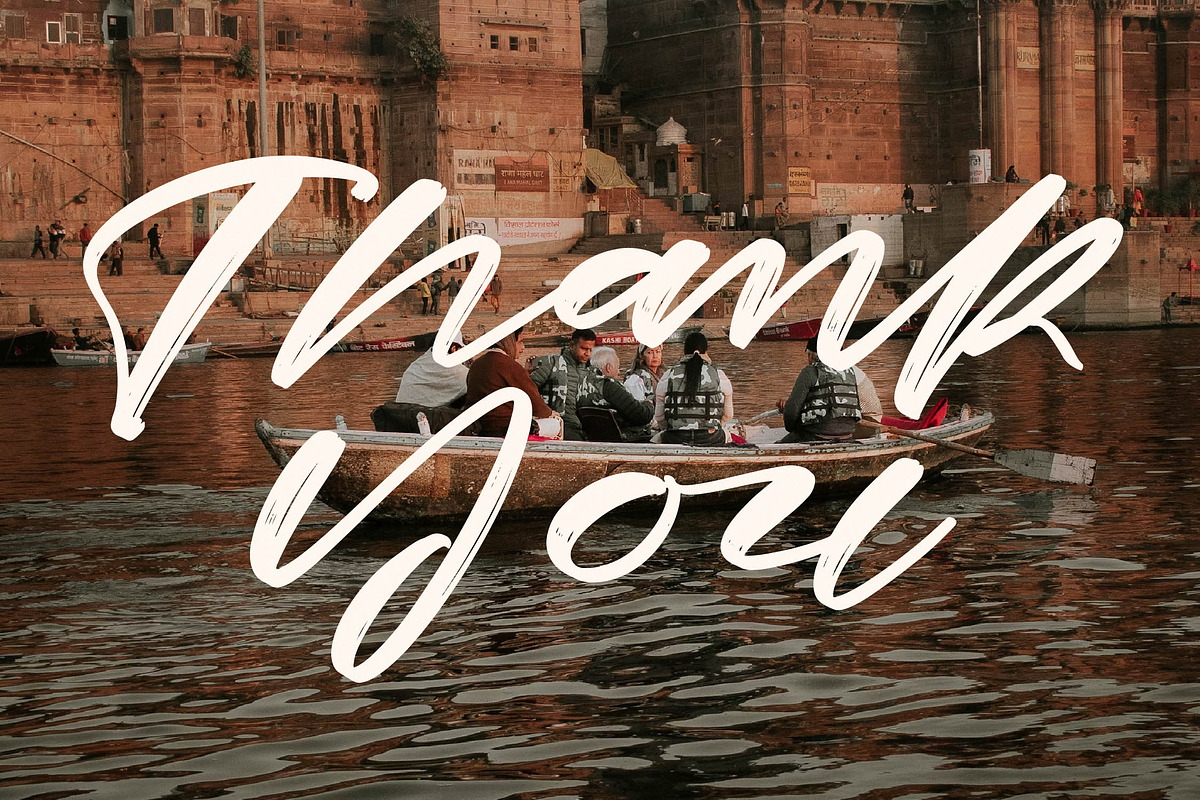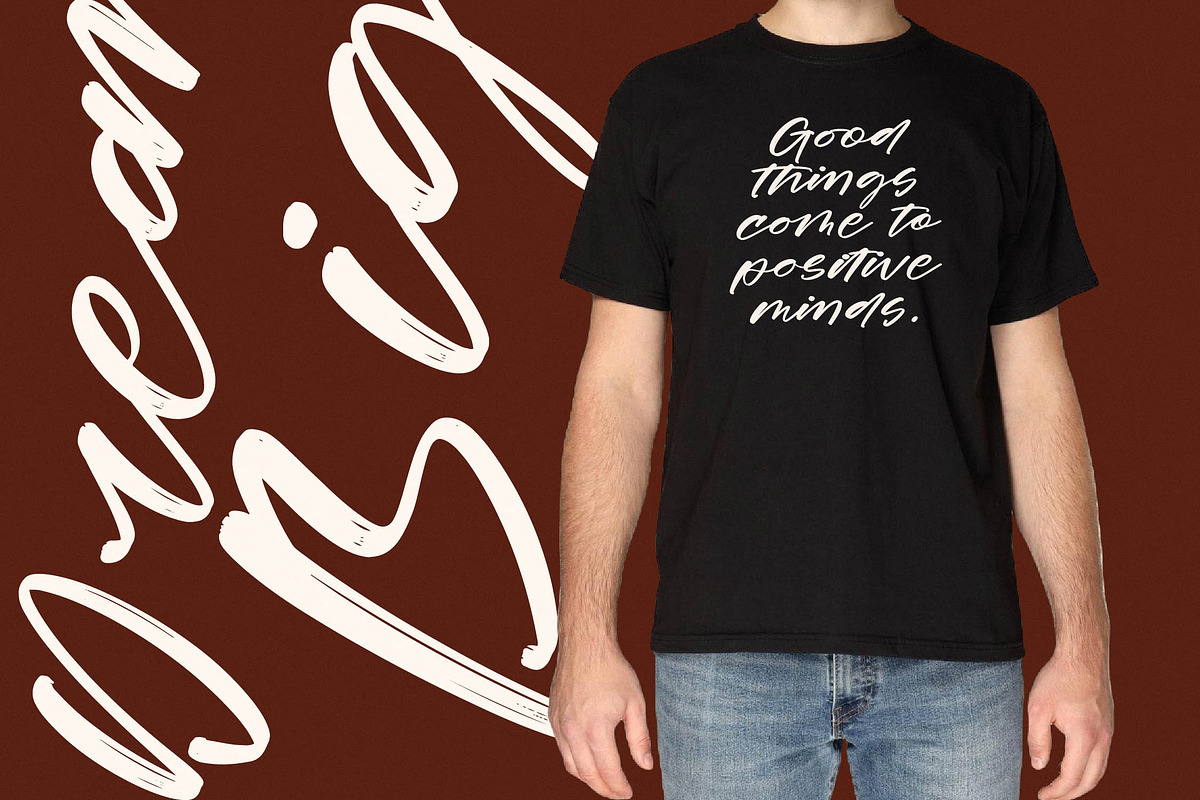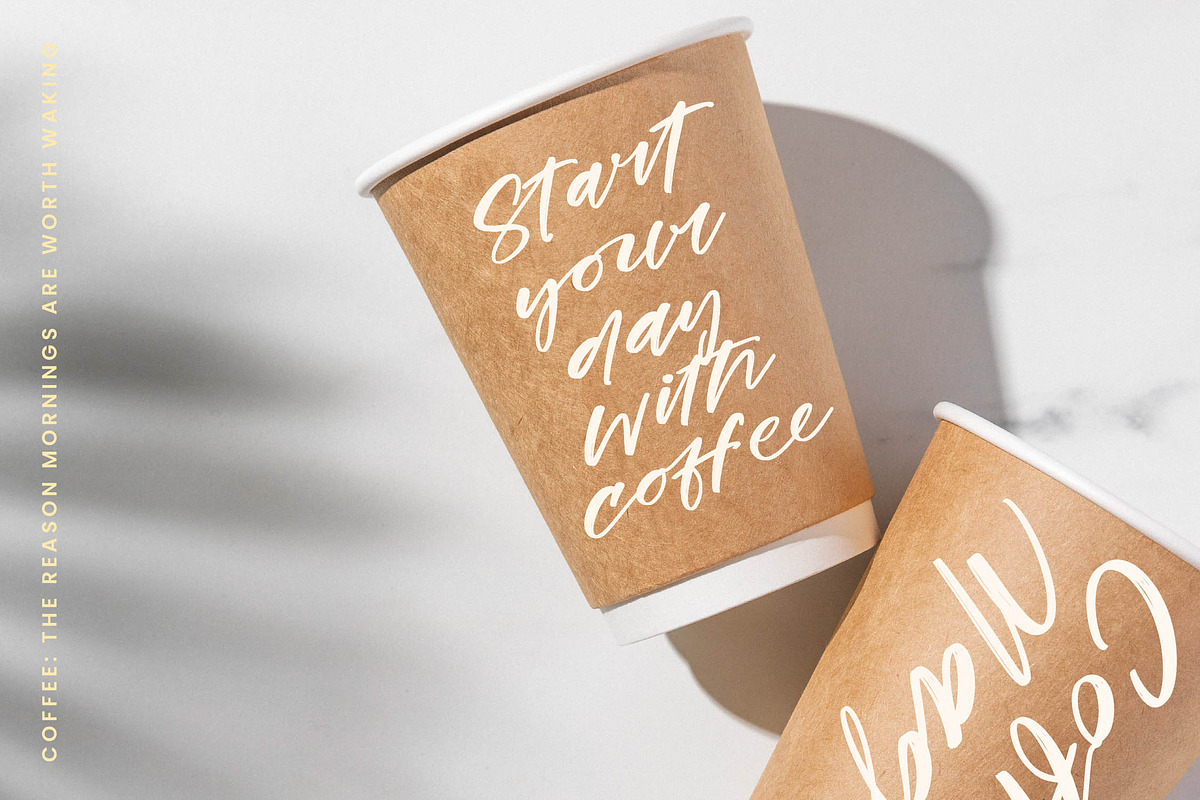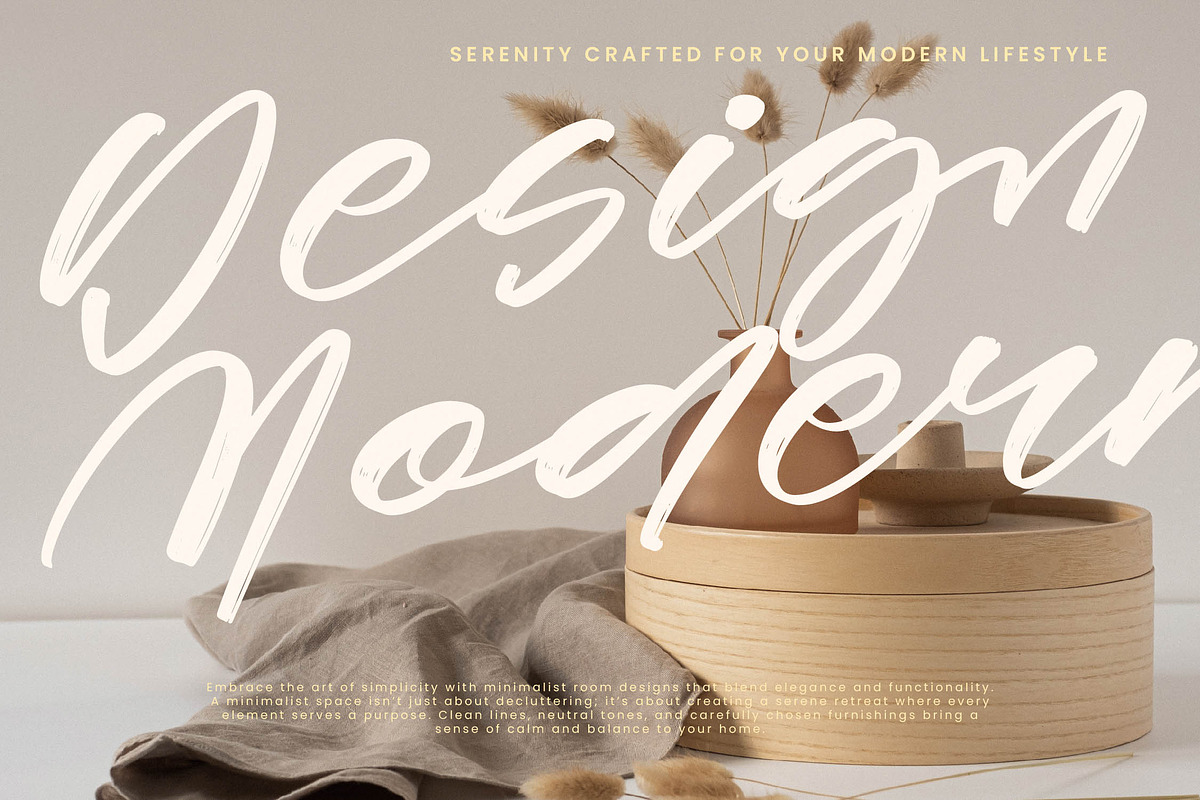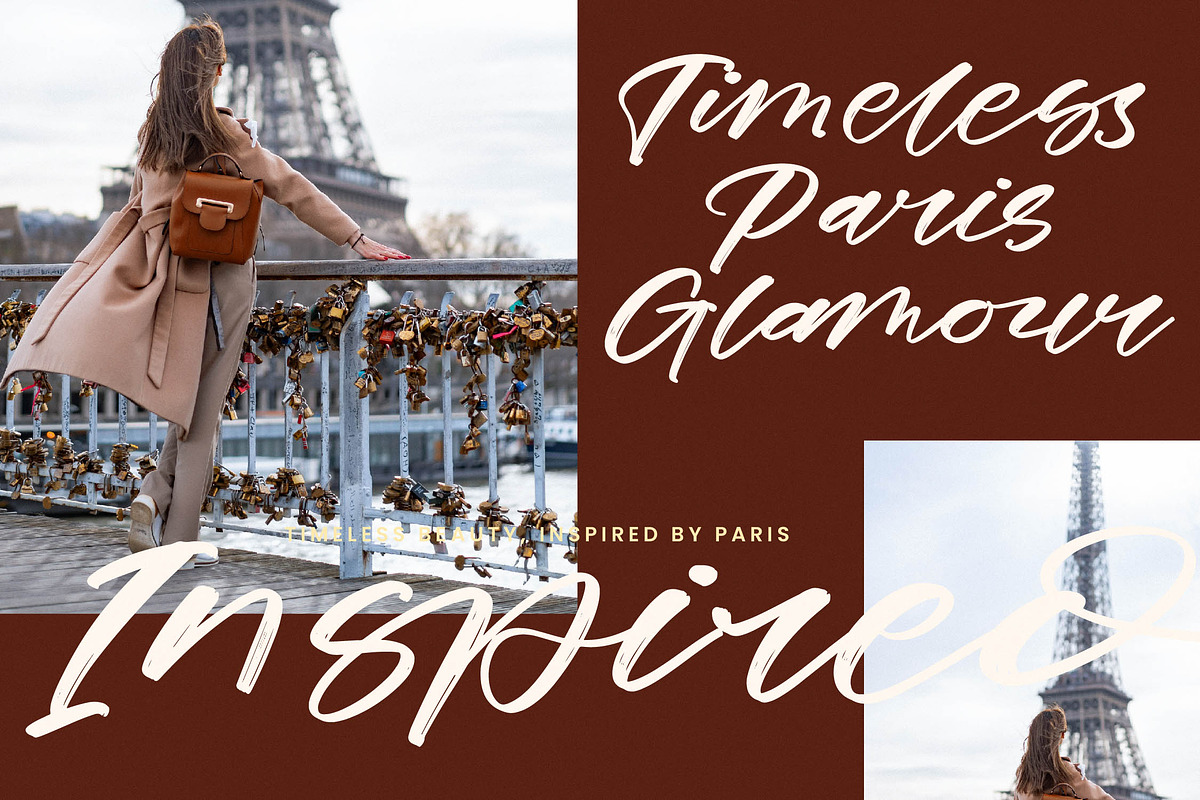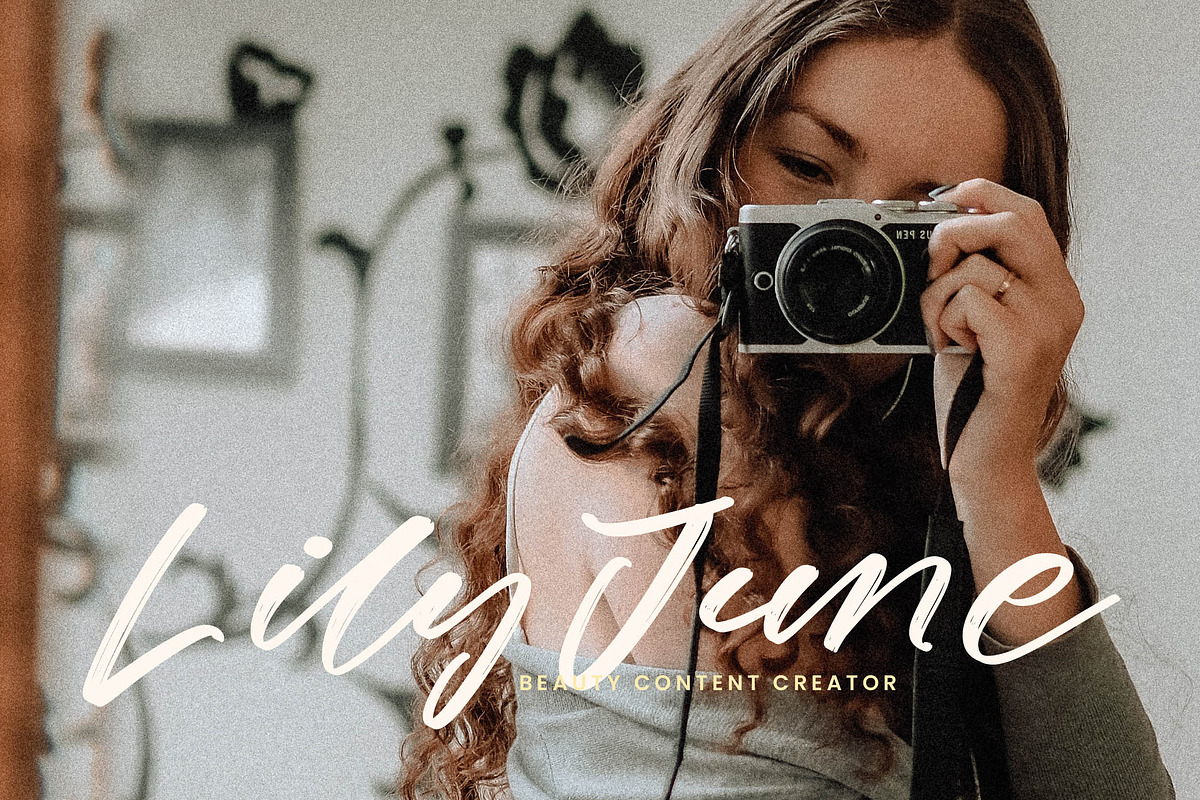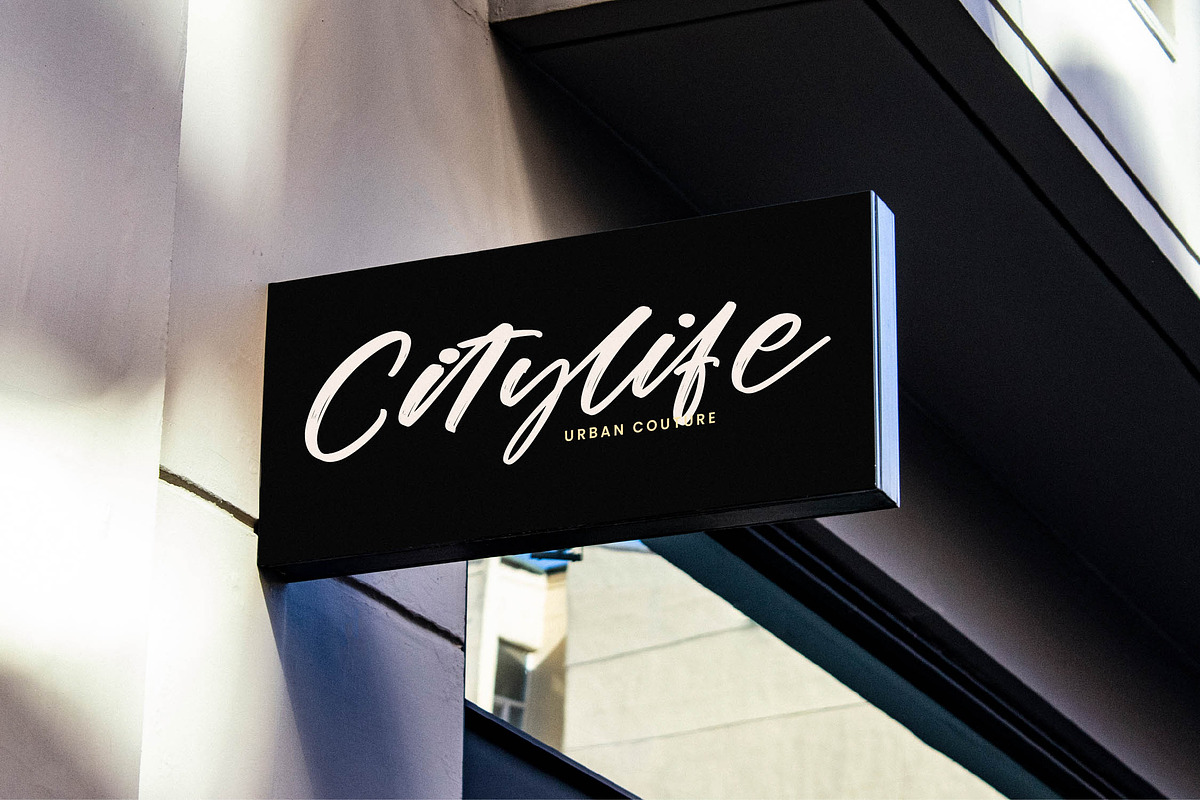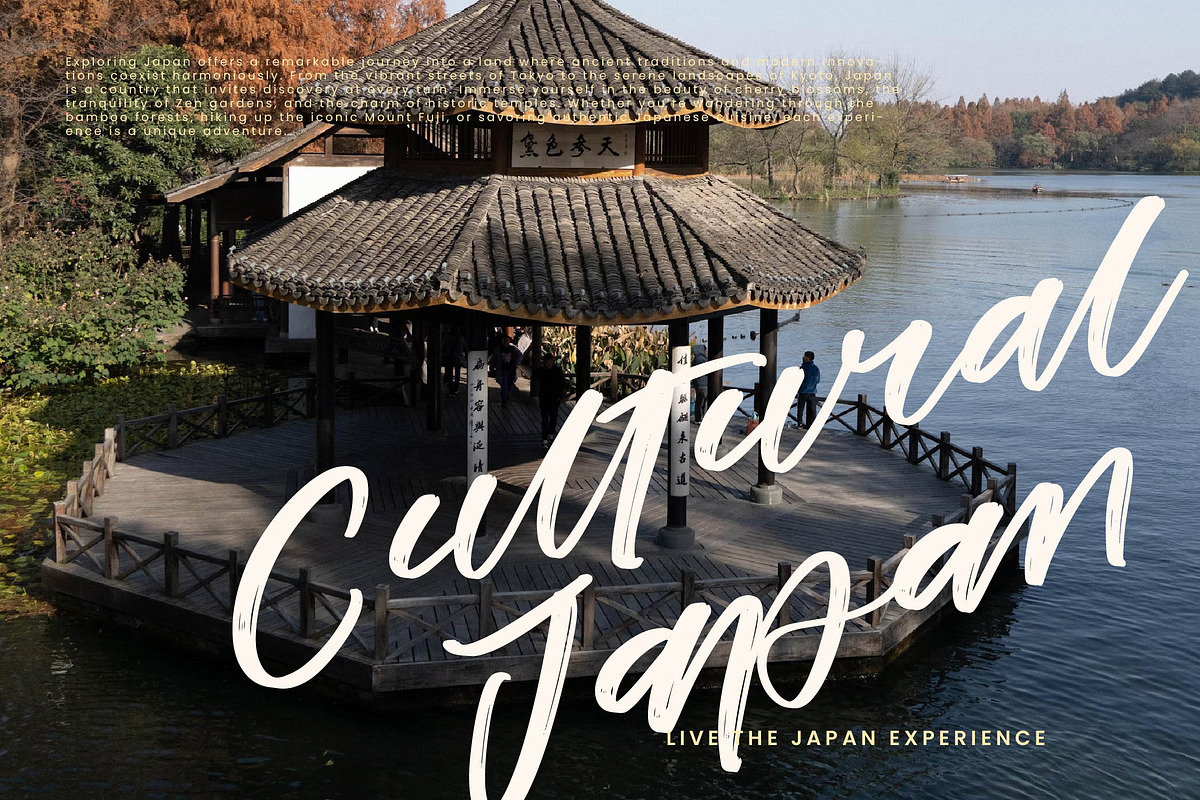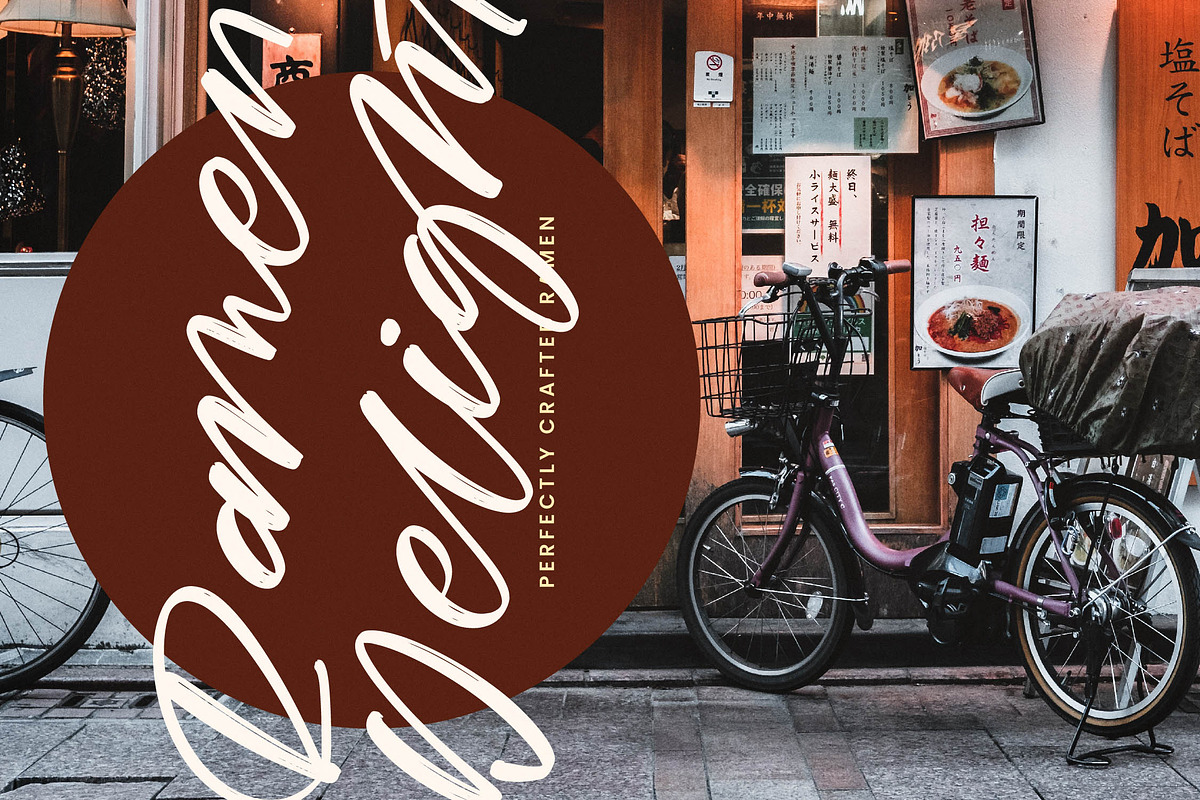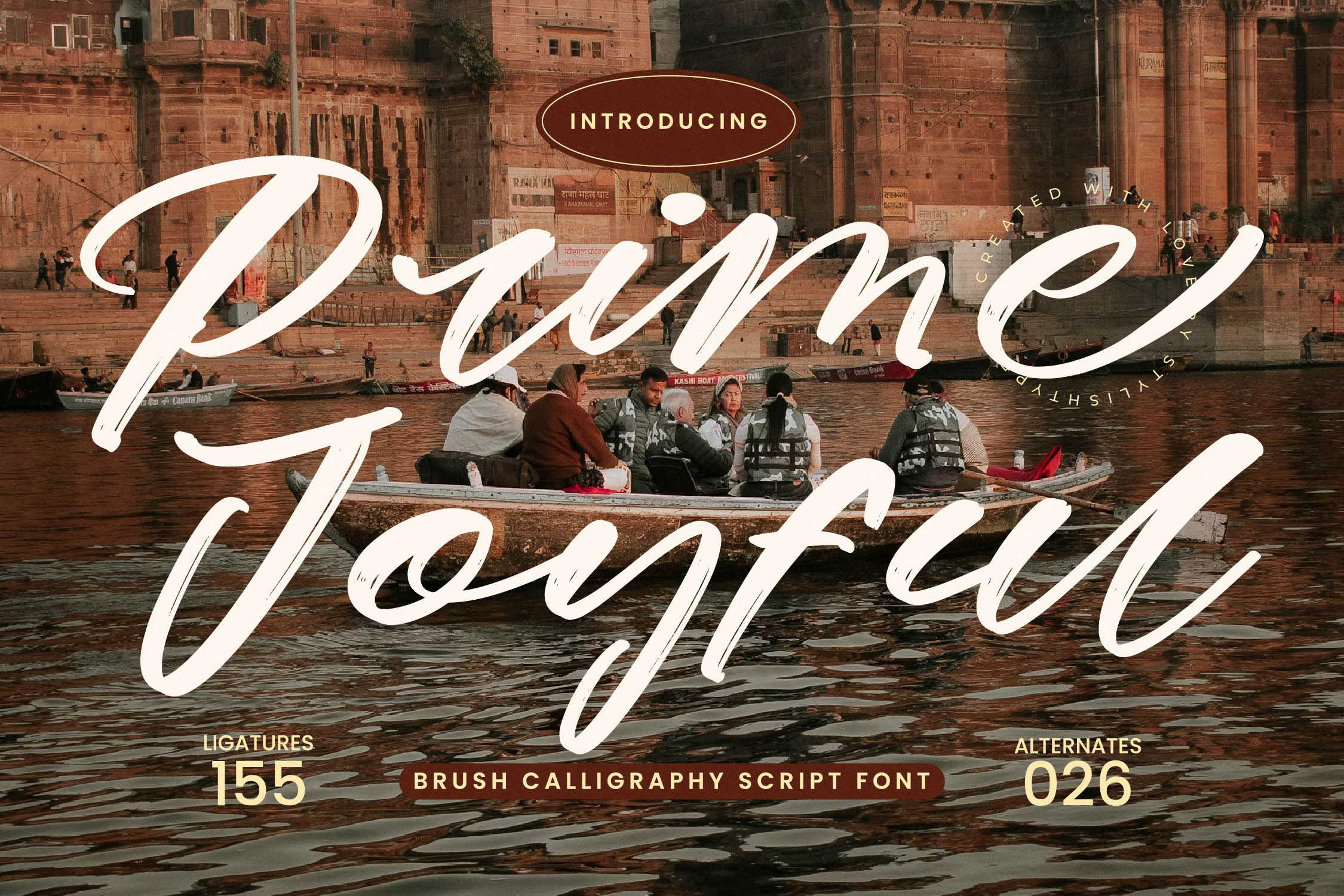
Prime Joyful Brush Calligraphy Font
Prime Joyful - Brush Calligraphy Script , from Stylishtype.Co , Suitable for any projects such as: logos, branding projects, homeware designs, product packaging, mugs, quotes, posters, shopping bags, t-shirts, book covers, name card, invitation cards, greeting cards, label, photography, watermark, special events, and all your other luxury and beautiful projects that need a Luxury Script taste.
- 155 Ligature 026 Alternates & Swashes